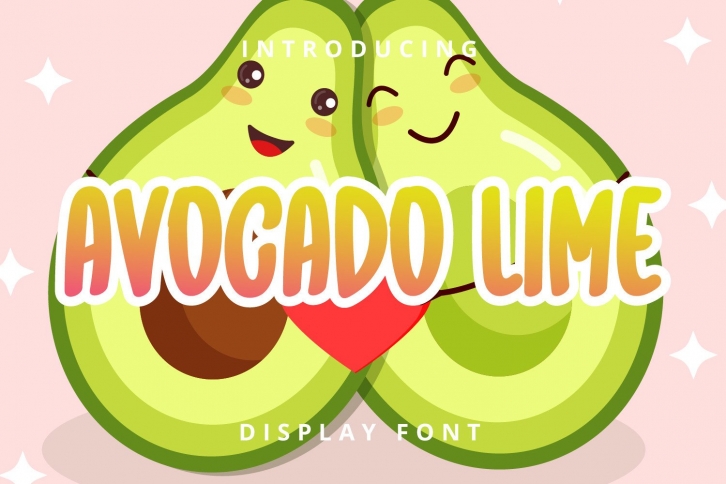
Avocado Lime is a brilliant, fun, cute handmade display font suitable for children-themed designs, especially when combined with bright colors. Add it to your logos, quotes, T-shirts, greeting cards, business cards, and many more, and make them outstanding!